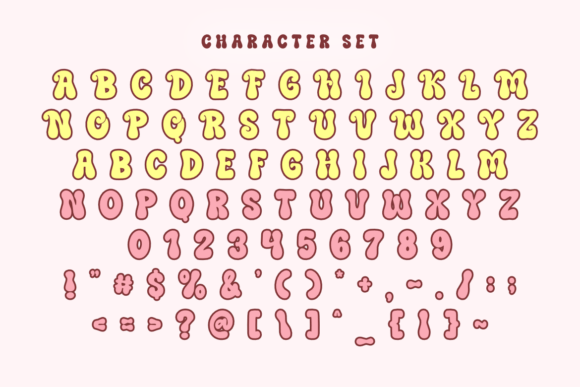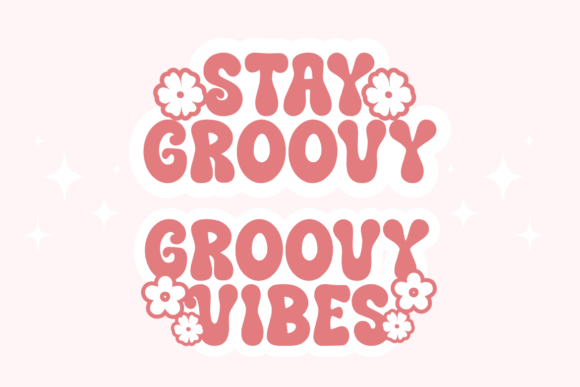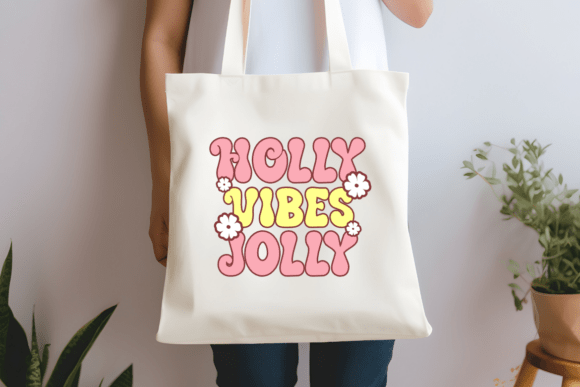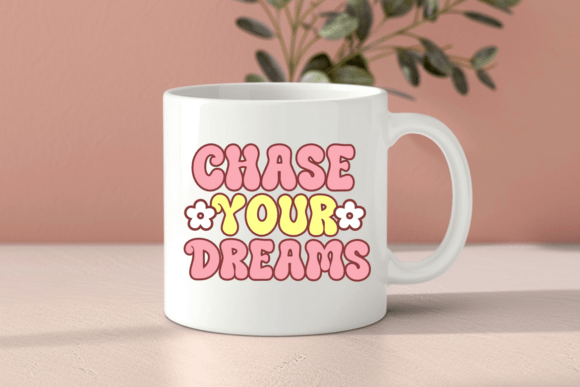
Introduction to Santa Power Font
As you sit down to plan your holiday crafts, you can’t help but feel a surge of creative energy. The twinkling lights, the festive music, and the scent of hot cocoa all blend together to create the perfect atmosphere for bringing your ideas to life. But what’s missing from your design is that special something – a dash of whimsy, a pinch of nostalgia, and a whole lot of holiday cheer. That’s where the Santa Power Font comes in, a fabulous display font that’s sure to add a touch of magic to your creative project.
Whether you’re a seasoned designer or a crafty DIY enthusiast, the Santa Power Font is a valuable addition to your design resource toolkit. With its thick strokes and playful curves, this font is perfect for creating high-quality designs that exude a vintage flair. And the best part? It’s available for free download, making it a transparent background and budget-friendly option for all your creative needs.
Santa Power Font Key Features
- Unique and festive font style with a transparent background, ideal for holiday-themed designs
- Includes 50+ characters, including uppercase and lowercase letters, numbers, and special symbols
- Perfect for use in digital and print media, including social media graphics, posters, and greeting cards
Honest Review: Santa Power Font
I recently had the chance to play around with the Santa Power Font, and I must say it’s an interesting addition to any design resource. The font is available for a free download, which is a definite plus for designers on a budget.
- The font’s bold and playful style makes it perfect for creative projects that need a bit of whimsy.
- The transparent background option is super useful for designers who need to layer their fonts over different backgrounds.
- The font is high quality, with crisp and clear lines that look great at various sizes.
- The font is quite limited in terms of style options, so it may not be the best choice for designers who like to experiment with different looks.
- The font’s bold style can be a bit overwhelming in some contexts, so designers will need to use it judiciously.
Overall, I’d say the Santa Power Font is a solid addition to any design library. It’s not perfect, but it’s a great resource for designers who need a fun and playful font for their next creative project.
Santa Power Font
Tips for Getting the Most Out of Santa Power Font
Use the Santa Power Font with a transparent background to create a high-quality design. Experiment with different font sizes and colors to create a visually appealing design. This font is perfect for creative projects, such as holiday cards, posters, and social media graphics.
Common Use Cases for Santa Power Font
The Santa Power Font is commonly used in holiday-themed designs, such as Christmas cards, gift tags, and social media graphics. It can also be used in general design projects that require a fun and playful font.
Q: What is the resolution and quality of the Santa Power Font?